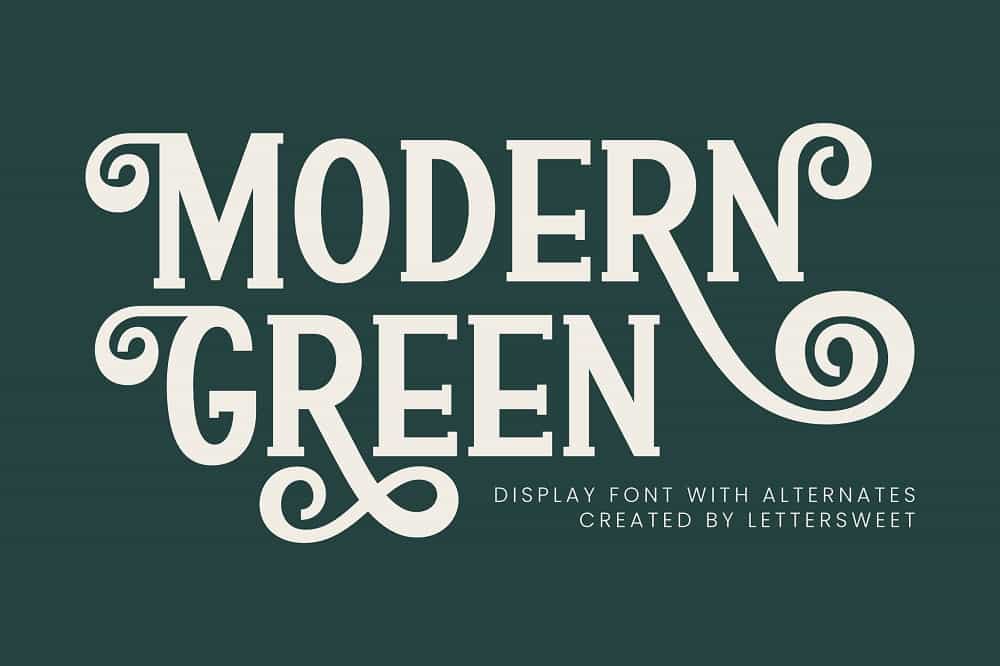
Discover Modern Green Font, part of the Slab Serif Display collection—a versatile and unique font perfect for adding a personal touch to your projects. Download it for free and enjoy crafting designs with style, from invitations to social media posts. This font is available exclusively for personal use, giving you the freedom to create without limits. Unlock your creativity with Modern Green Font today!
Modern Green can be classified as a display font. That is why it has a rather fun and playful concept. This font is good for logos and any other numerous formal types. The ideas where you can apply it is in invitation and cards, labels, logo, magazines and books, packaging, fashion and make up industries, stationery products, novels, labels, and many others.